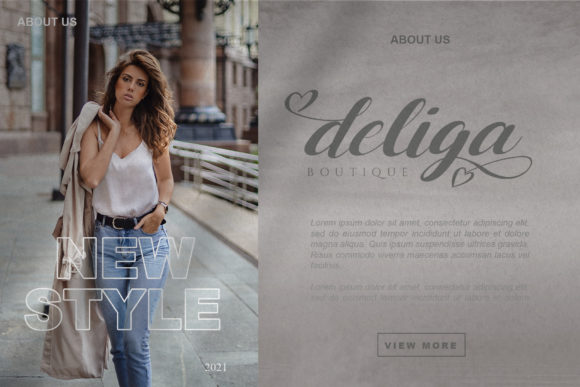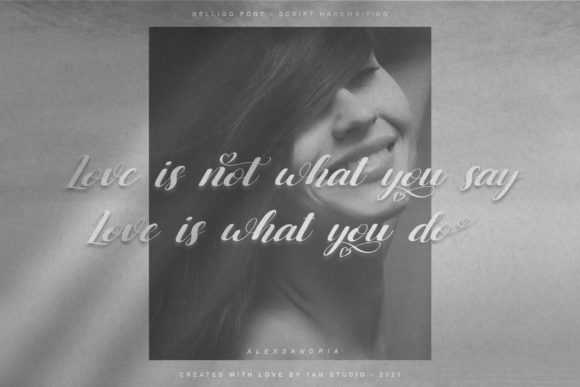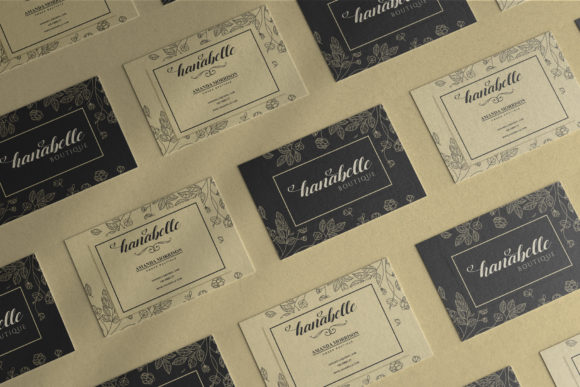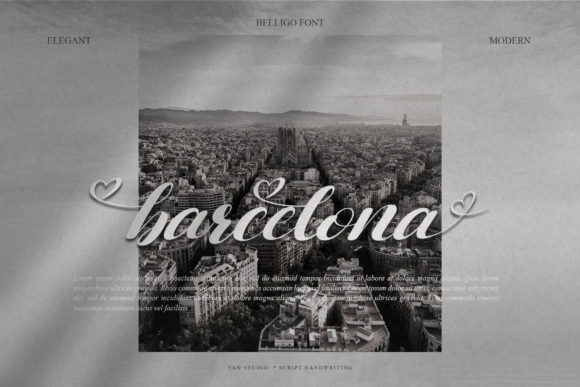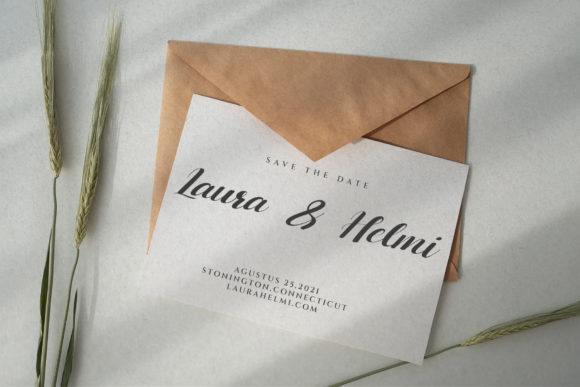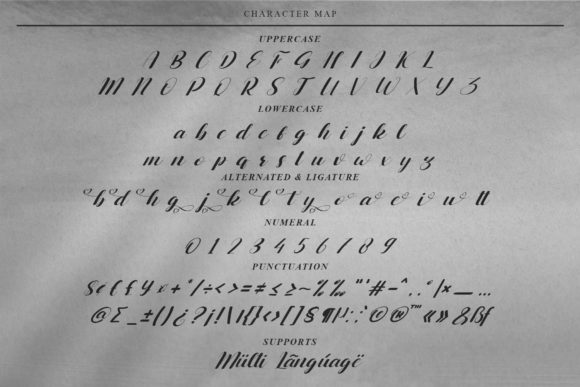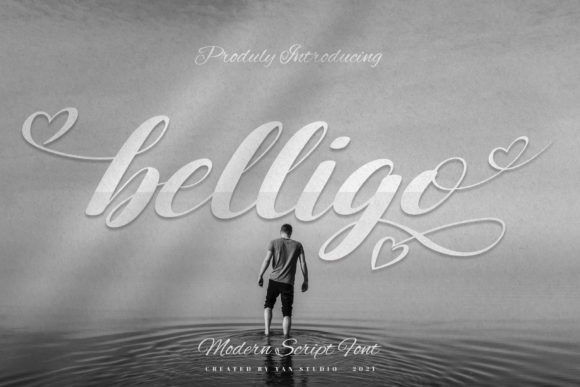
Belligo Font: A Delicate and Cursive Handwritten Font for Your Design Needs
Are you looking for a font that can add a touch of elegance and romance to your designs? Look no further than the Belligo font. This delicate and cursive handwritten font is perfect for a variety of design ideas, from wedding invitations to branding and packaging. In this article, we’ll take a closer look at the Belligo font, its features, and how you can use it to elevate your designs.
What is Belligo Font?
Belligo is a beautiful, handwritten font that is characterized by its delicate and cursive strokes. The font is designed to look elegant and sophisticated, making it perfect for designs that require a touch of refinement. The gentle curves and flowing lines of the Belligo font make it a joy to use, and it’s sure to add a romantic touch to any project.
Features of Belligo Font
The Belligo font has several features that make it a great choice for designers and crafters. Some of its key features include:
- Delicate and cursive strokes: The Belligo font features delicate and cursive strokes that give it a elegant and sophisticated look.
- Handwritten feel: The font has a handwritten feel that makes it perfect for designs that require a personal touch.
- Versatile: The Belligo font is versatile and can be used for a variety of design ideas, from wedding invitations to branding and packaging.
- Easy to read: Despite its delicate strokes, the Belligo font is easy to read, making it perfect for body text and headings.
How to Use Belligo Font in Your Designs
The Belligo font is a versatile font that can be used in a variety of design ideas. Here are some ways you can use the Belligo font in your designs:
Wedding Invitations
The Belligo font is perfect for wedding invitations, as it adds a touch of elegance and romance to the design. You can use the font to create beautiful wedding stationery, including invitations, save-the-date cards, and thank-you cards.
Branding and Packaging
The Belligo font can also be used for branding and packaging. The font’s delicate and cursive strokes make it perfect for creating elegant and sophisticated brand identities. You can use the font to create logos, business cards, and packaging materials that reflect your brand’s personality.
Digital Designs
The Belligo font can also be used in digital designs, such as social media graphics, blog posts, and email marketing campaigns. The font’s clear and readable strokes make it perfect for digital designs, where legibility is key.
Tips for Using Belligo Font
Here are some tips for using the Belligo font in your designs:
- Use it sparingly: While the Belligo font is beautiful, it can be overwhelming if used too much. Use it sparingly to create a focal point in your design.
- Pair it with a sans-serif font: Pairing the Belligo font with a sans-serif font can create a beautiful contrast that makes your design stand out.
- Experiment with colors: The Belligo font looks beautiful in a variety of colors. Experiment with different colors to find the one that works best for your design.
The Belligo font is a beautiful and versatile font that can add a touch of elegance and romance to your designs. Its delicate and cursive strokes make it perfect for a variety of design ideas, from wedding invitations to branding and packaging. With its easy-to-read strokes and handwritten feel, the Belligo font is a great choice for designers and crafters. So why not give it a try and see how it can elevate your designs?